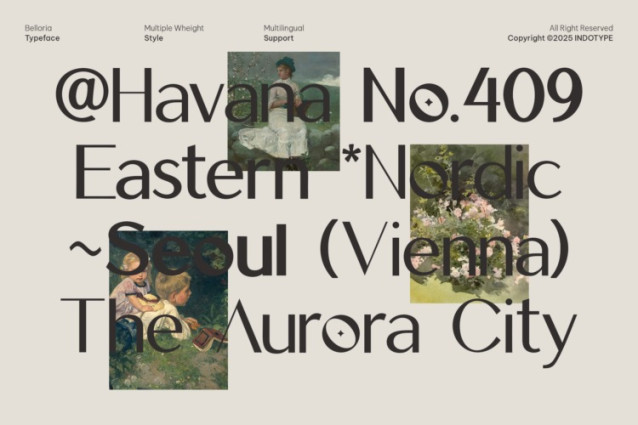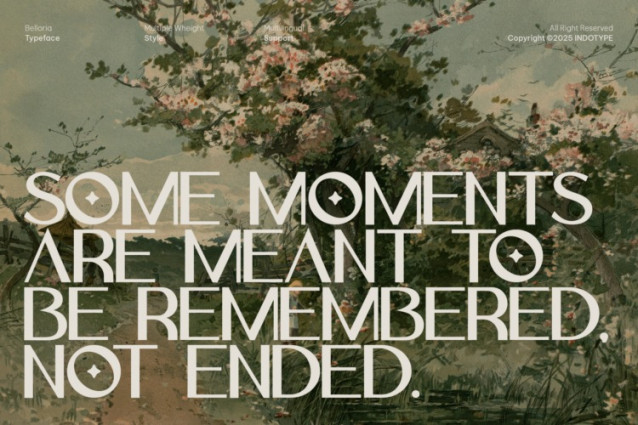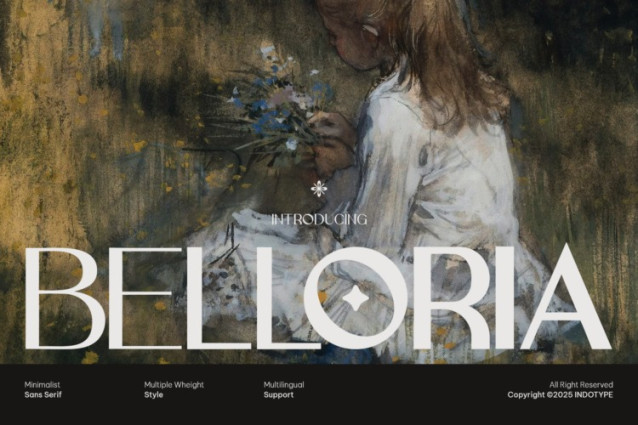
IT Belloria Font
IT Belloria Font is a sophisticated and highly versatile sans-serif font family, meticulously crafted for clean, modern, and timeless design. Characterized by its minimalist aesthetic, balanced proportions, and subtle humanist warmth, Belloria excels in both display and text settings. With a comprehensive range of multiple weights and full multilingual support, it is a complete typographic system built for global brands, elegant editorial layouts, and refined digital interfaces. More than just a font, Belloria is a design partner. Its clarity and understated elegance make it perfect for corporate identities that demand trust, luxury brands that seek quiet sophistication, and UI/UX projects that require seamless readability. Whether used for a bold headline or delicate body copy, Belloria delivers consistent beauty and flawless functionality.